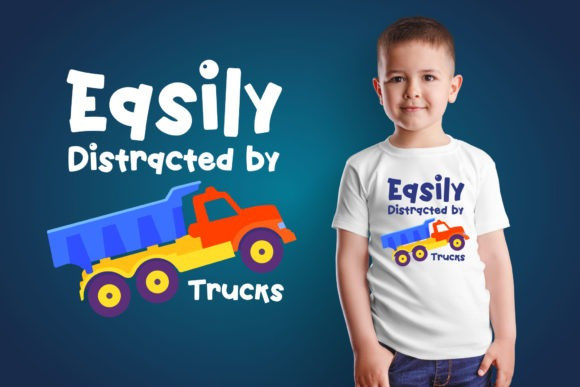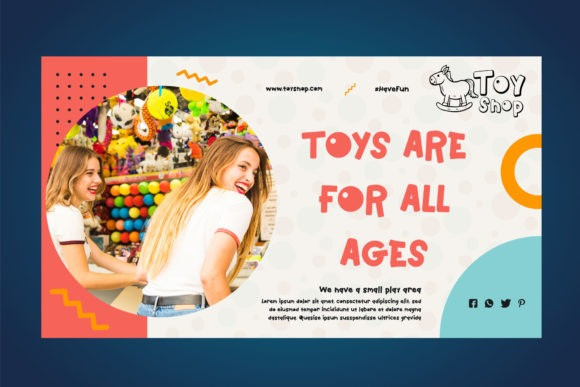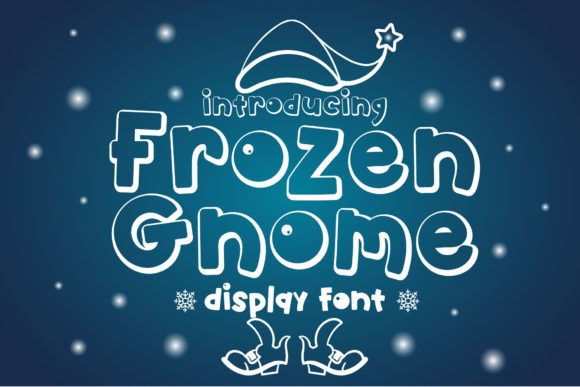
Frozen Gnome Font
Frozen Gnome Display Font is a cool and uniquely designed display font. Whether you are using it for cartoon-related designs, children games, quotes, titles, brand names, book covers, posters, or just any creation that requires a touch of joy, this font is a great choice.